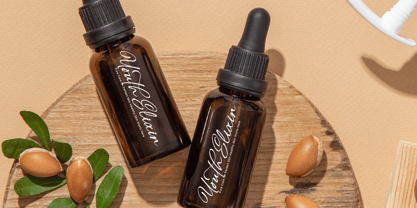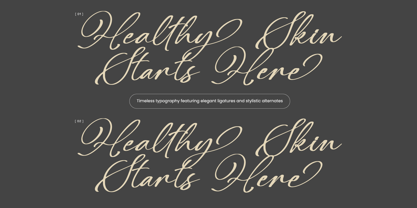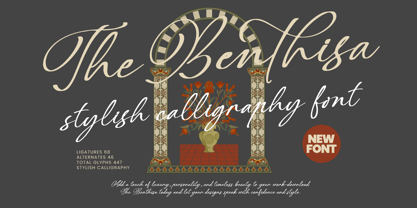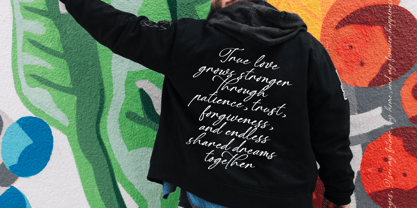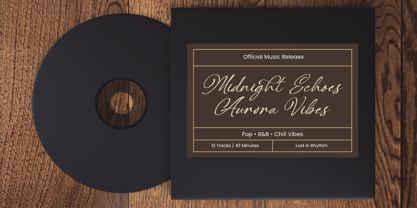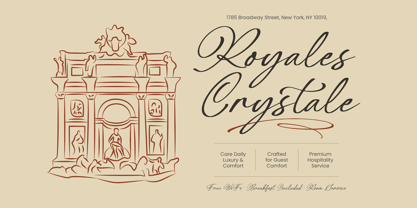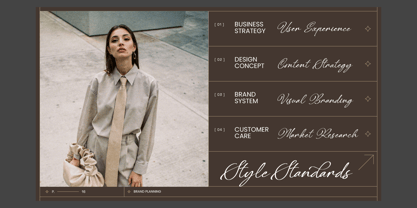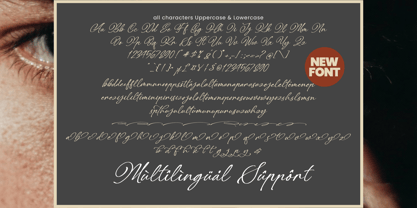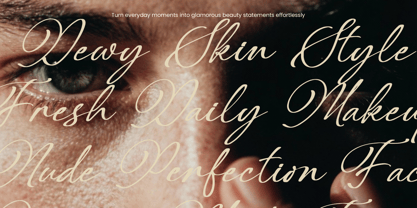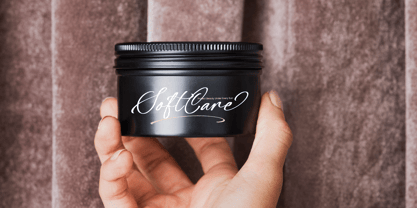
Benthisa
The Benthisa Font Family was designed by Heru Utama Putra and published by Letterena Studios. Benthisa contains 2 styles and family package options. More about this family
The Benthisa is a stylish calligraphy font crafted with elegant flowing strokes, refined swashes, and graceful curves that embody luxury and timeless sophistication. Designed with a natural handwritten rhythm and smooth connections, this typeface delivers a high-end signature feel while maintaining clarity and balance. With 68 ligatures, 46 alternates, and 447 total glyphs, The Benthisa offers rich typographic flexibility for creating expressive and distinctive compositions. Perfect for branding, logos, fashion identities, wedding designs, invitations, editorial layouts, packaging, and premium social media visuals, this font adds a personal yet polished character to any project. Optimized for both print and digital use, The Benthisa is ideal for designers seeking a calligraphy script that communicates elegance, confidence, and enduring beauty.